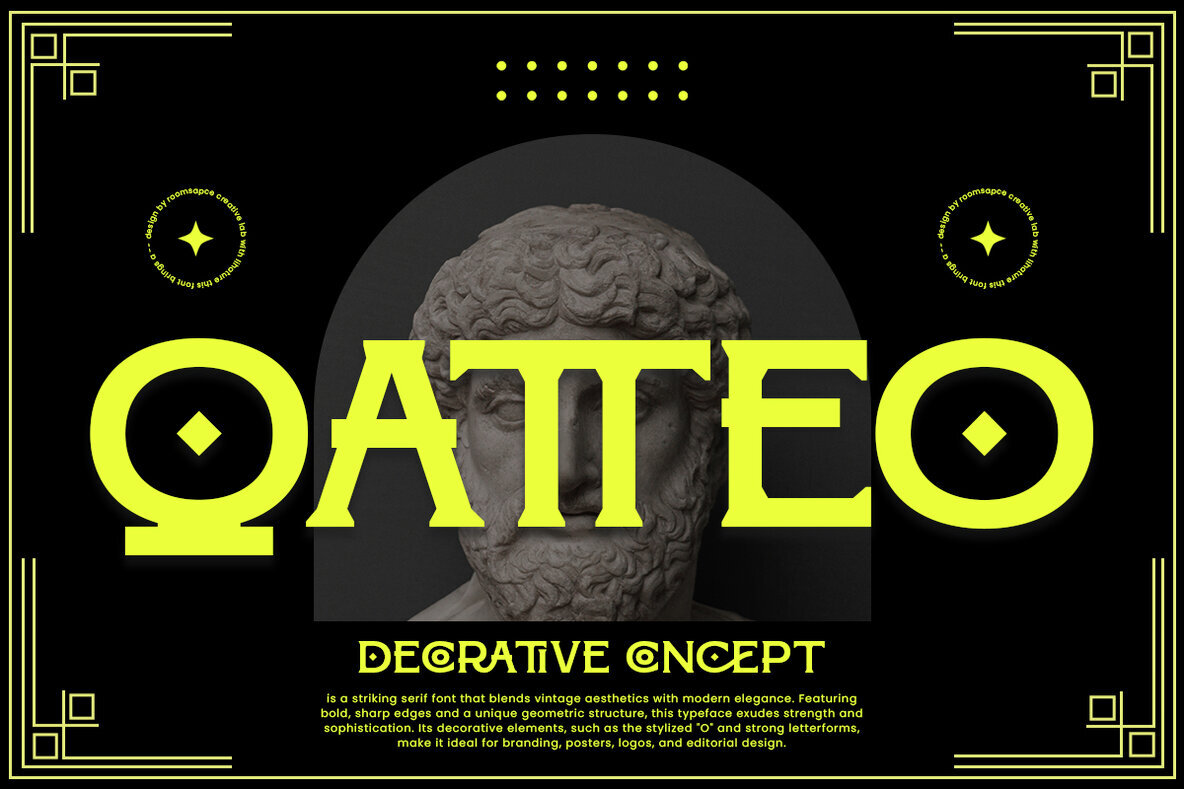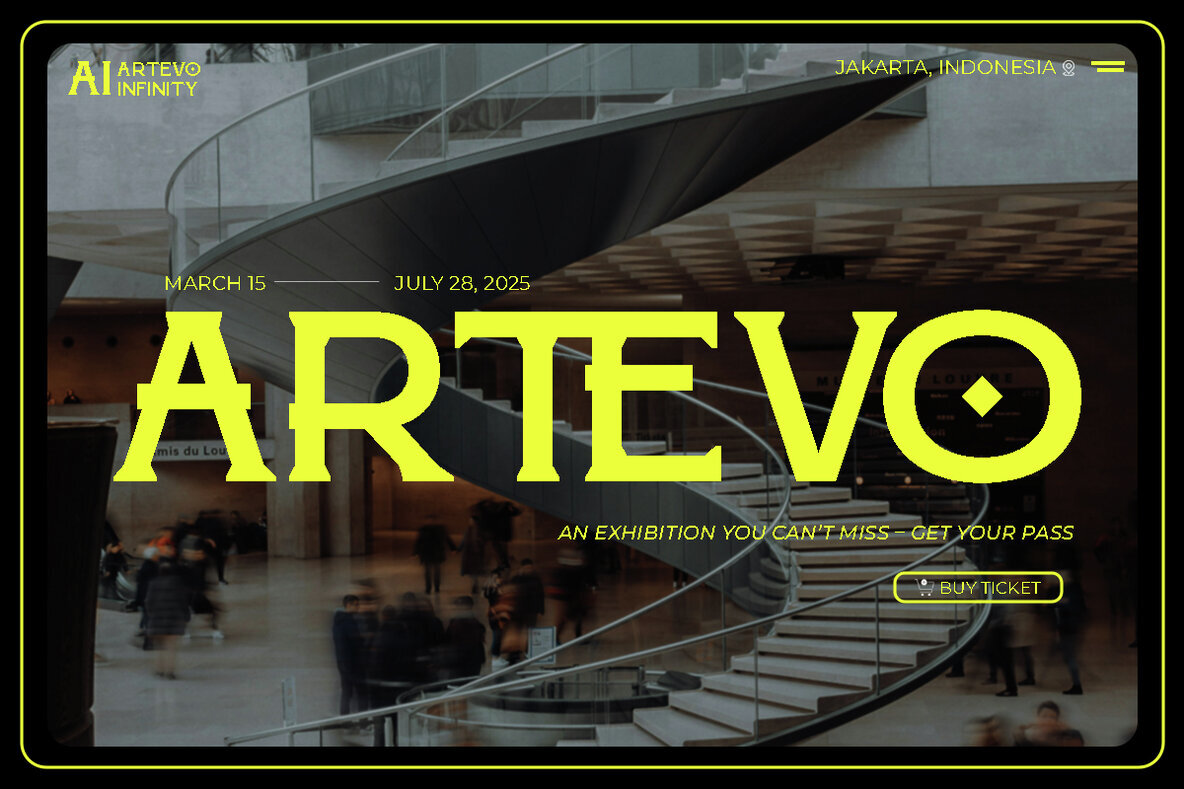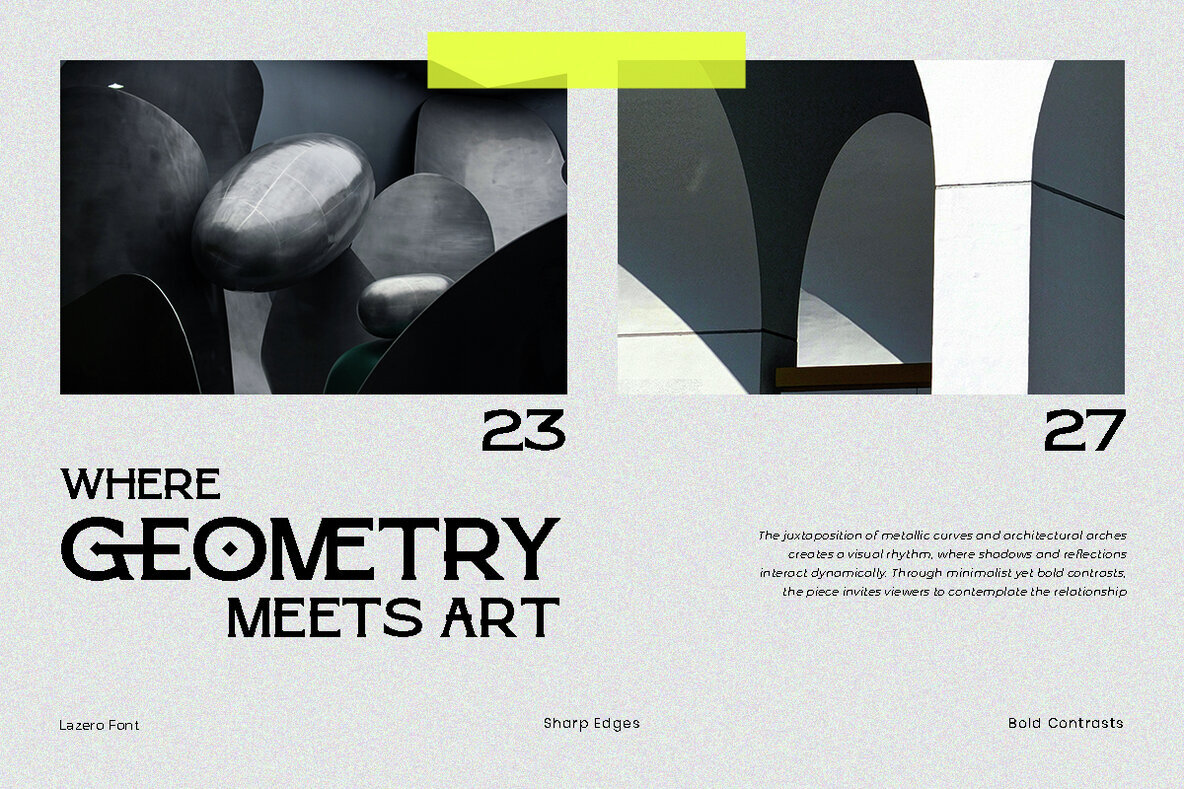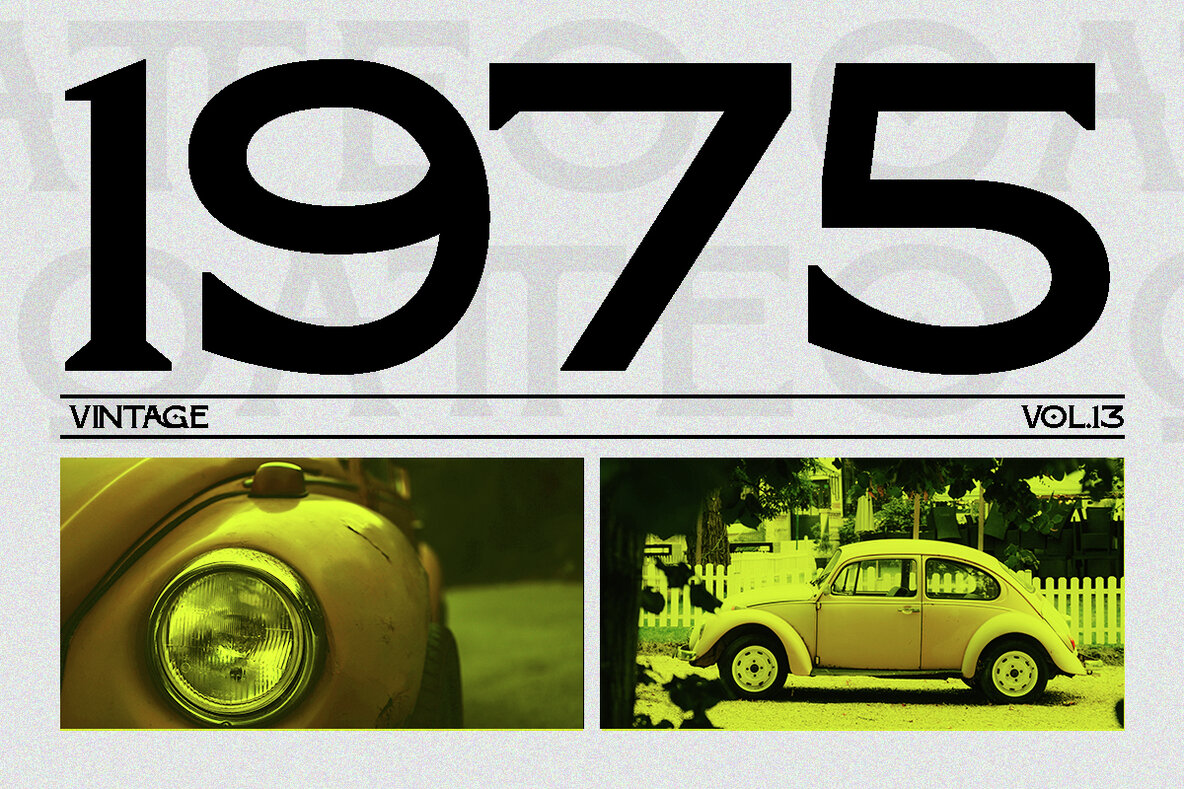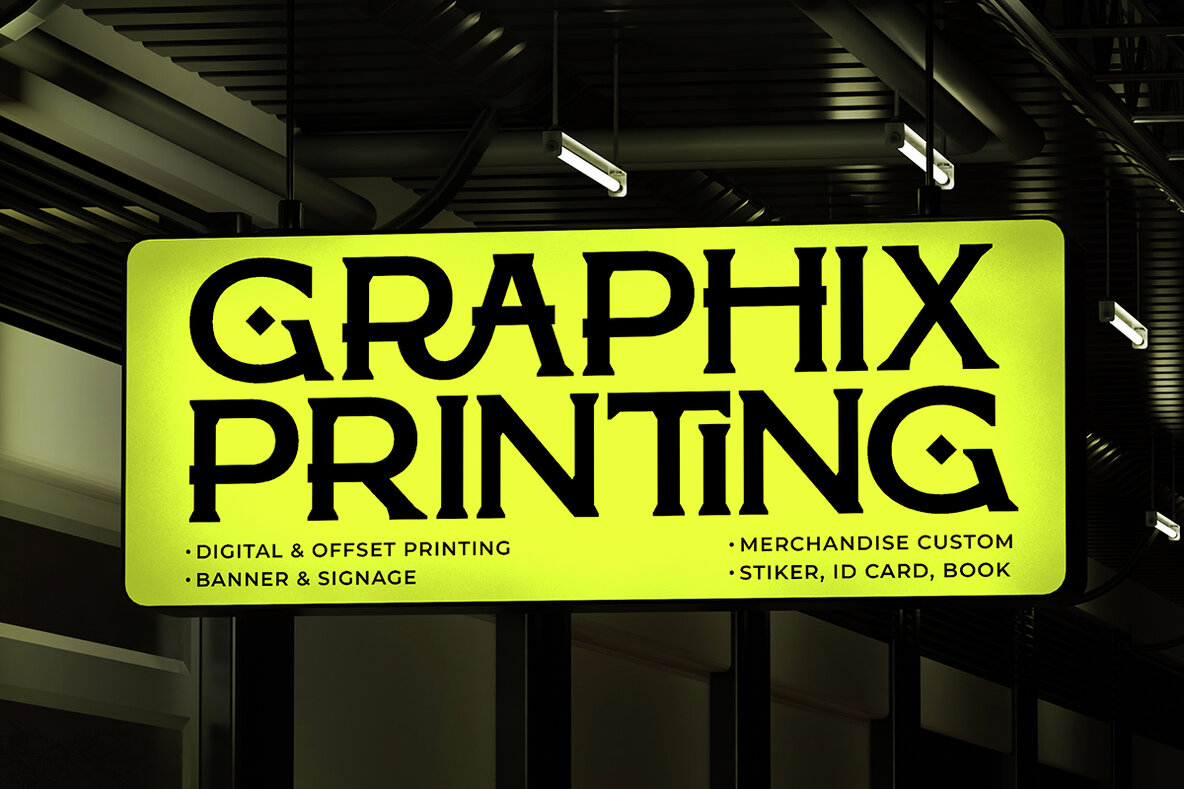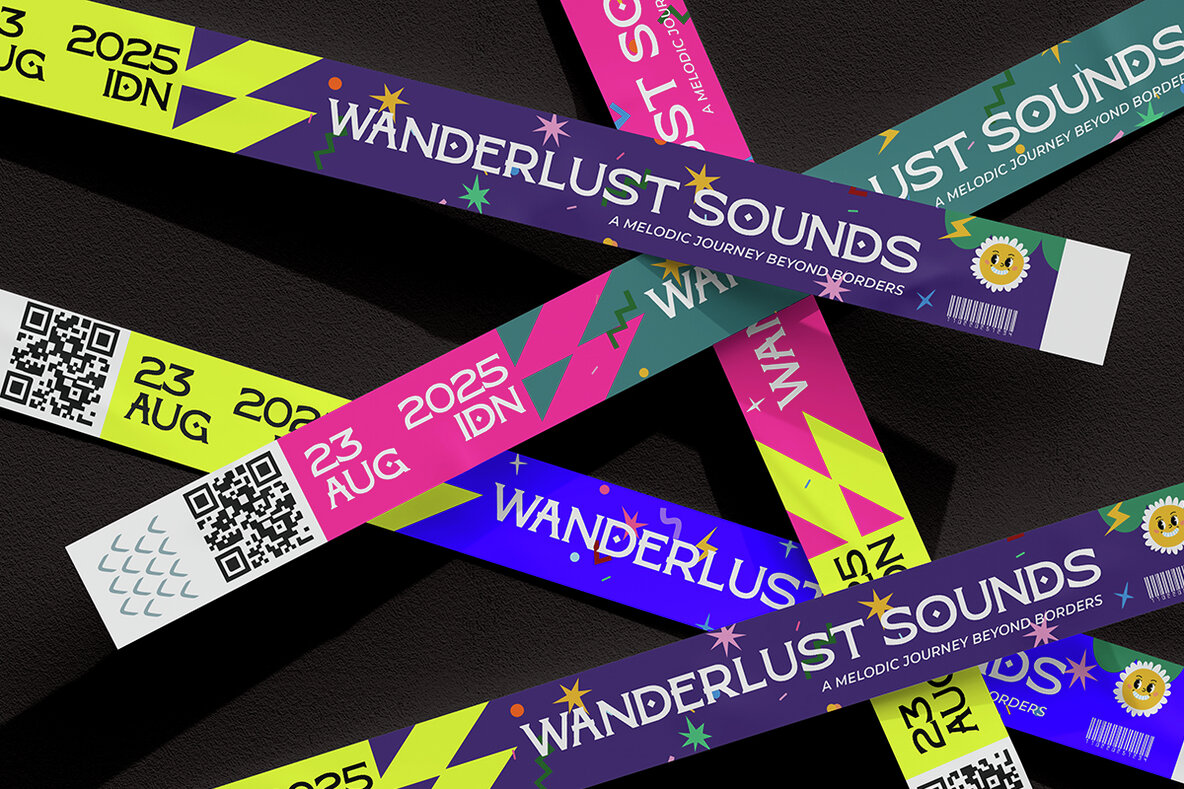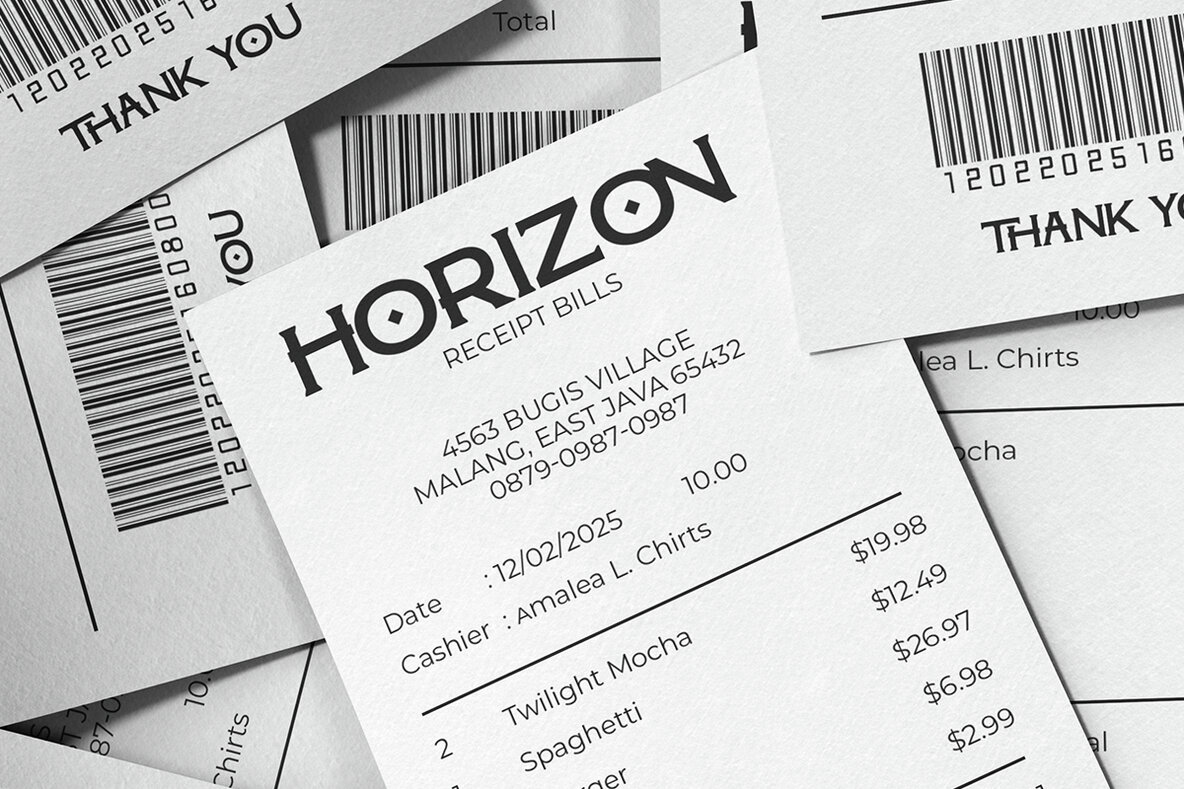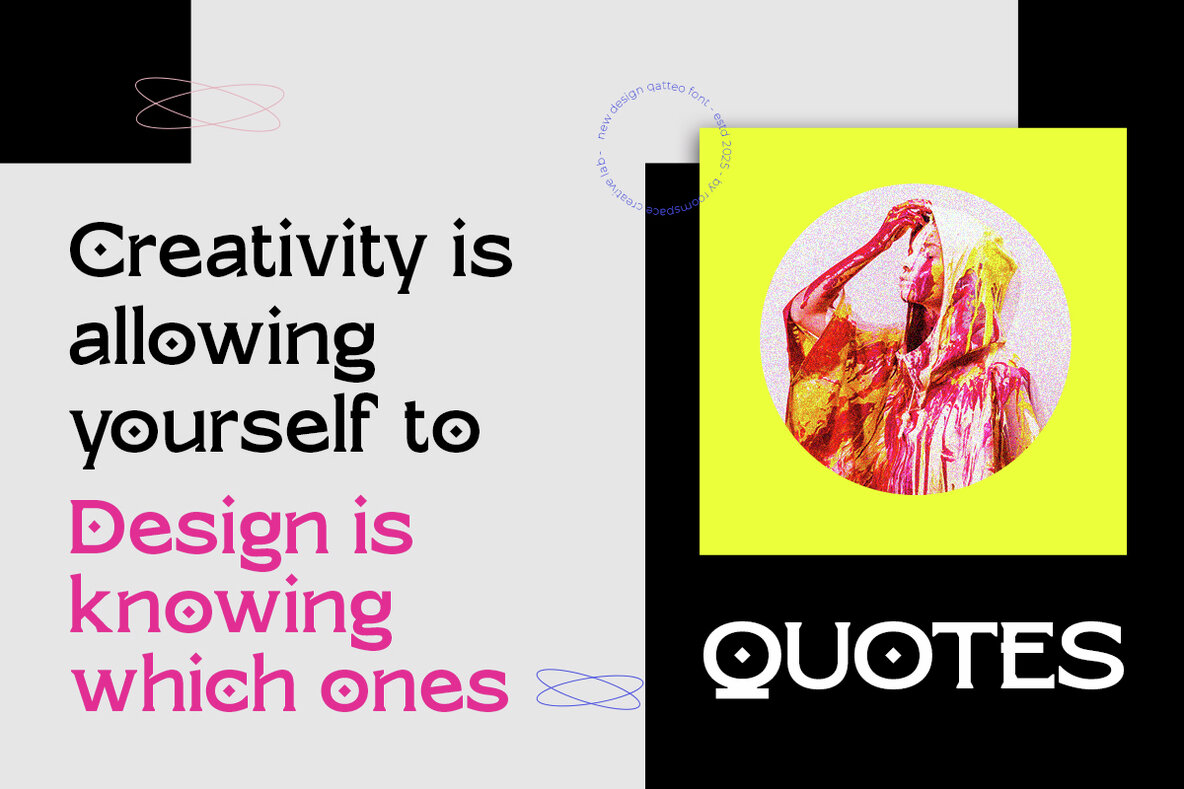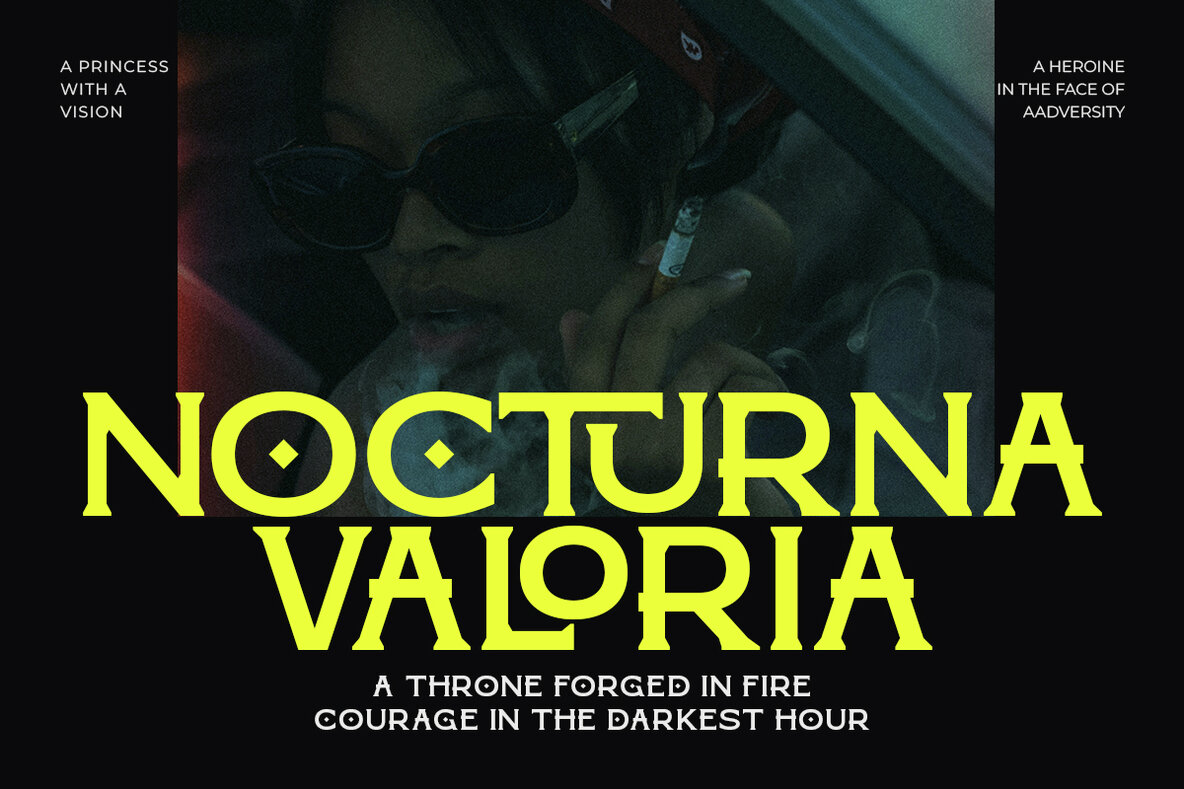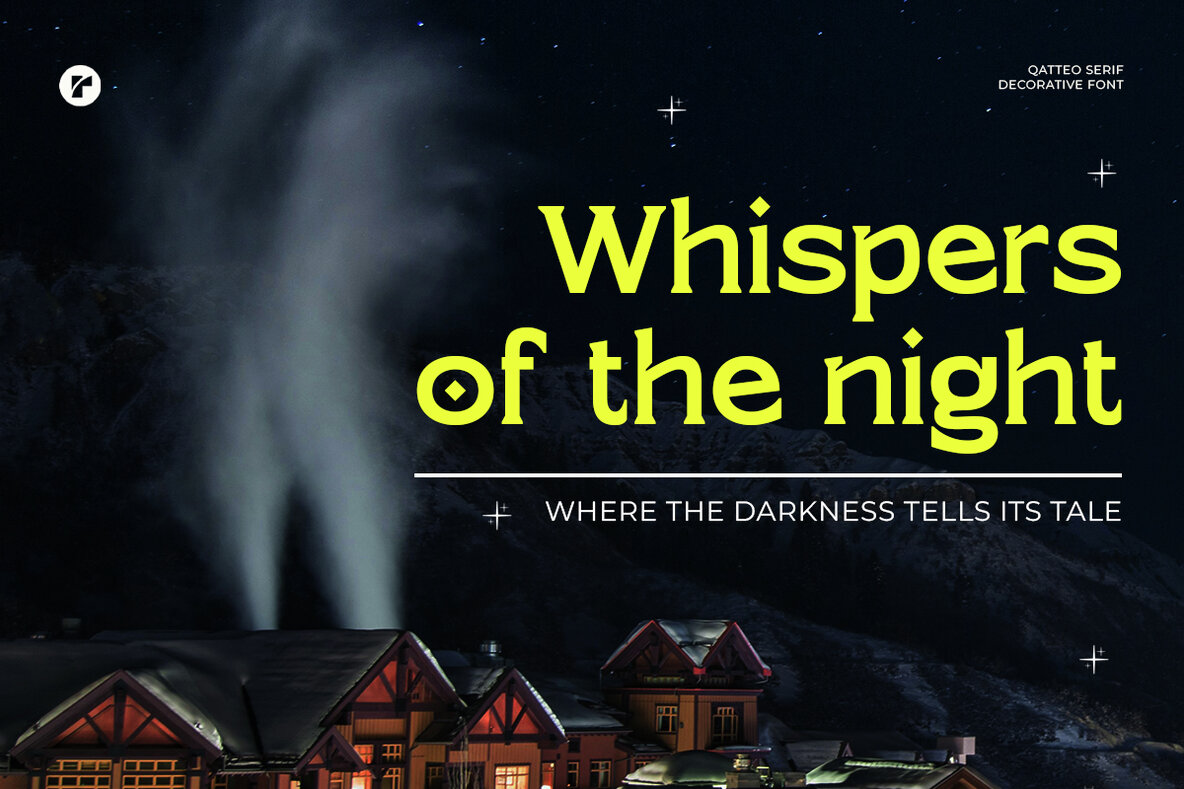
Qatteo Font
Qatteo is a decorative serif font that combines bold geometry with artistic elegance, designed to make an impactful statement. This typeface features sharp edges, distinctive letterforms, and a variety of stylish ligatures, creating a sophisticated yet daring aesthetic. Perfect for luxury branding, editorial designs, posters, logos, and high-end packaging, Qatteo's extensive ligature set allows for unique and creative compositions. Its distinctive "O" and meticulously crafted alternates add personality to any project, ensuring your typography captures attention effortlessly.
Whether you're designing fashion projects, creative layouts, or statement pieces, Qatteo delivers confidence and sophistication. Fully compatible with major design software, it seamlessly integrates into your creative toolkit. Qatteo supports regular ligatures with both uppercase and lowercase characters, includes numbers and punctuation, and offers multilingual support. It works on both PC and Mac, ensuring simple installation and easy access across platforms.